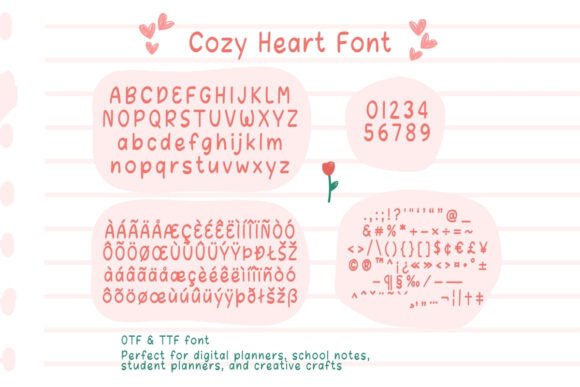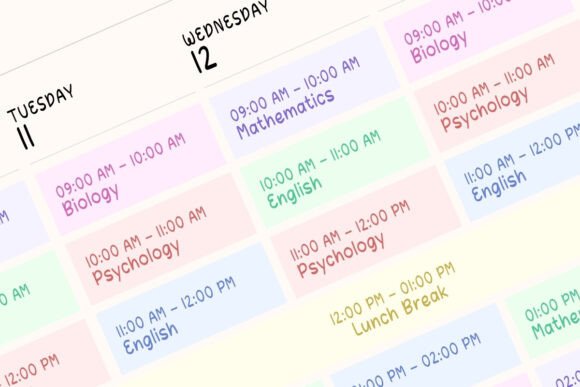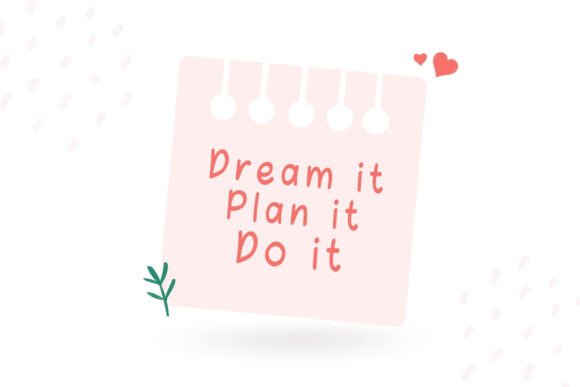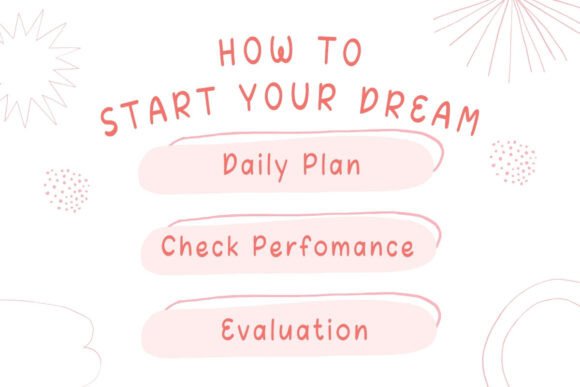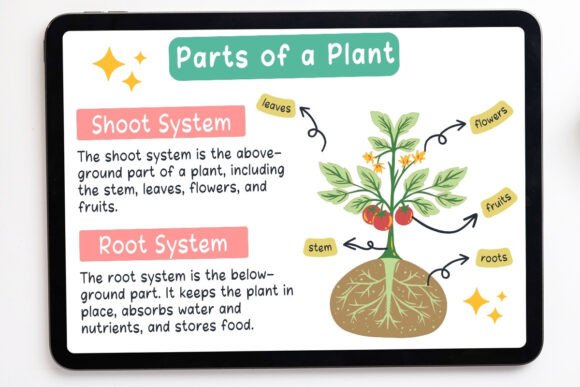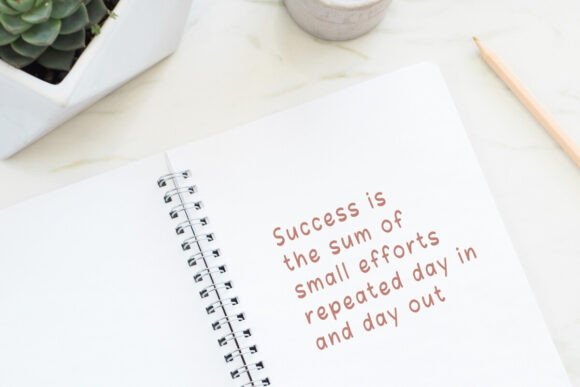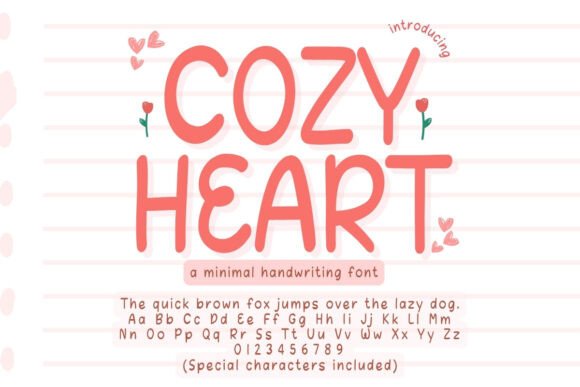
Introducing Cozy Heart Font: The Ultimate Handwriting Companion for Creatives
Are you tired of using the same old fonts for your notes, journals, and DIY projects? Look no further! We’re excited to introduce Cozy Heart, a bold and neat handwriting font that’s perfect for effortless note-taking and creativity. This versatile font is designed to work seamlessly with popular digital tools like Goodnotes, Notion, Procreate, Canva, and more.
The Perfect Blend of Style and Functionality
Cozy Heart font is a masterful blend of smooth and playful style, adding a cozy touch to your study notes, digital planners, and DIY projects. Its unique charm makes it an ideal choice for students, designers, and crafters looking to elevate their work with a personal touch. Whether you’re a fan of handwriting fonts or looking to try something new, Cozy Heart is sure to capture your heart.
Cozy Heart font is perfect for a wide range of creative projects, including:
- School notes and student planners: Add a touch of personality to your study notes and make them stand out.
- Digital journals: Create a beautiful and reflective space for journaling and self-expression.
- DIY projects: Use Cozy Heart font to add a personal touch to your crafts, such as handmade cards, gift tags, and more.
- Digital art: Experiment with Cozy Heart font in your Procreate or Canva designs for a unique and eye-catching look.
Comprehensive Character Set
Cozy Heart font includes a comprehensive character set, featuring:
- Uppercase letters: A to Z
- Lowercase letters: a to z
- Numbers: 0 to 9
- Symbols: Punctuation marks, mathematical operators, and more
- Special characters: Accents, diacritical marks, and other special characters
Why Choose Cozy Heart Font?
So, what sets Cozy Heart font apart from other handwriting fonts? Here are just a few reasons why designers and crafters love Cozy Heart:
- Readability: Cozy Heart font is designed to be easy to read, making it perfect for notes, journals, and other written content.
- Versatility: Cozy Heart font works seamlessly with a range of digital tools, from Goodnotes to Canva.
- Uniqueness: Cozy Heart font has a distinctive charm that sets it apart from other handwriting fonts.
- Ease of use: Cozy Heart font is easy to use, even for those who are new to handwriting fonts.
Get Ready to Fall in Love with Cozy Heart Font
If you’re looking for a handwriting font that adds a touch of warmth and personality to your work, look no further than Cozy Heart. With its smooth and playful style, comprehensive character set, and versatility, Cozy Heart font is the perfect choice for designers, crafters, and creatives of all kinds.
In conclusion, Cozy Heart font is a bold and neat handwriting font that’s perfect for effortless note-taking and creativity. With its unique charm, comprehensive character set, and versatility, Cozy Heart font is an ideal choice for designers, crafters, and creatives looking to add a personal touch to their work. Whether you’re a student, designer, or crafter, Cozy Heart font is sure to capture your heart and inspire your creativity.